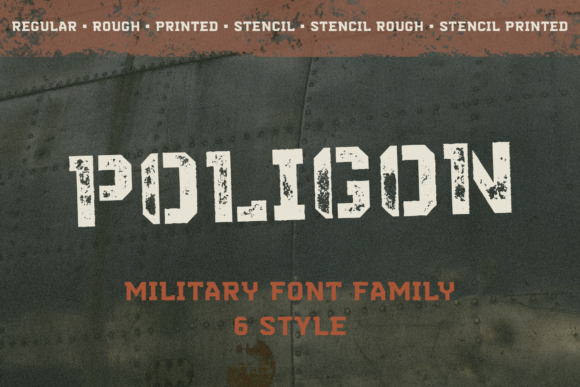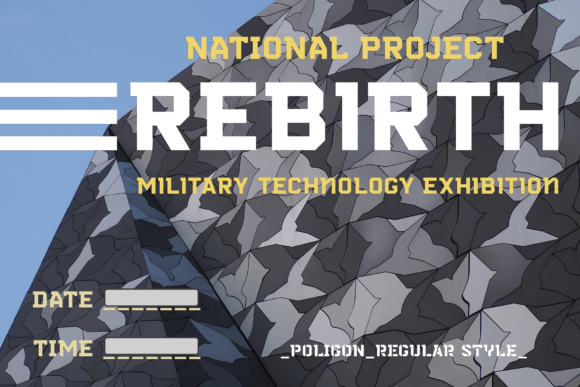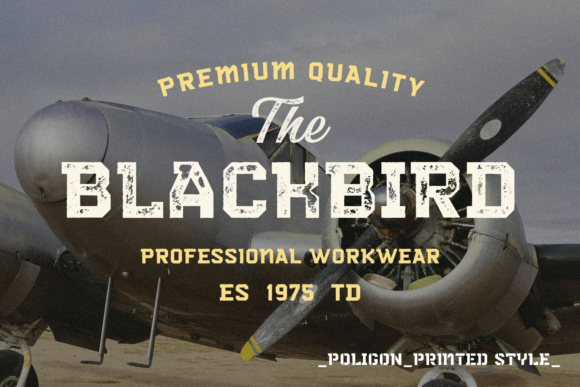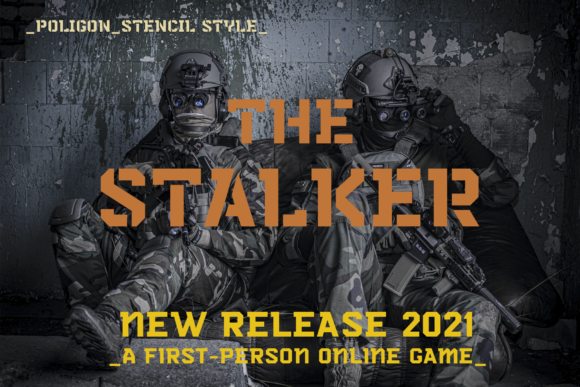
Poligon Font
About the Poligon Font
Welcome to the world of Poligon Font, a typeface that will inspire your next great project. Poligon is a bold and assertive display font. Strong yet simple lettered, this font will make the ideal choice for a wide range of designs, both formal and informal.
Poligon excels in headlines, logos, and short impactful statements across branding materials and posters. Its strong geometry makes it unsuitable for body text or UI elements where readability over long passages is crucial. Avoid using it for smaller sizes or in situations requiring high levels of legibility.
The font’s assertive nature pairs well with clean sans-serif fonts like Helvetica or Open Sans for a modern, balanced feel, or a more delicate script like Playfair Display for a sophisticated contrast. Geometric sans-serifs will enhance its boldness while a classic serif like Garamond can provide a grounding counterpoint, creating a formal yet striking combination.
Poligon projects a bold, modern, and confident personality. It’s ideal for brands seeking to convey strength, innovation, or a sense of authority. Think technology, architecture, or high-end fashion.